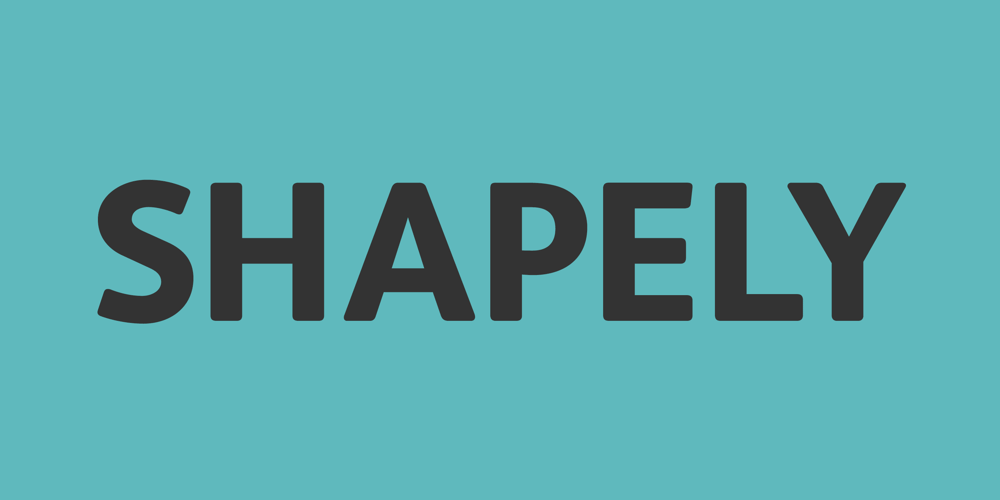
FS Albert
FS Albert font
FS Albert Font Family was designed by Jason Smith and published by Fontsmith. FS Albert contains 9 styles and family package options. The x factorHow do you make a font like FS Albert unique, distinctive? “When designing a font I try to question every letter,” says Jason Smith, “but all you need is a few that have an x factor. With FS Albert, they’re the lowercase ‘a’ and ‘g’ and the uppercase ‘I’ and ‘J’.“I remember a friend saying, ‘Why on earth have you designed the ‘a’ like that? Isn’t it too friendly for this kind of font?’ And, in a way, that’s what I wanted – honesty and warmth, because a lot of big brands at the time really needed to show a more human side.”Range of weights and stylesFS Albert is a charismatic type: a warm, friendly sans serif face with a big personality. Open, strong and amenable, and available in a wide range of weights and styles, FS Albert suits almost every task you put it to.Fontsmith has crafted five finely-tuned upright Roman weights and four italic weights, as well as a special Narrow version to provide the best coverage and give headlines and text an easy-going character.The chunky kid“FS Albert was inspired by – and named after – my son, who was a bit of a chunky kid,” says Jason Smith. “I designed an extra bold weight because I always felt that the really big font heavy weights had the most personality.“I recently told Albert this story. He laughed, and forgave me for thinking he was a fat baby. He liked the big personality bit, though.”1000s of glyphsNot content with a character set that covered Europe and the whole of the Western world, the studio decided to go further afield. There are now FS Albert character sets that cover western and eastern European languages, including those of Russia, as well as Cyrillic, Arabic and Greek scripts.In fact, the font now covers more than 100 languages, making it ideal for bringing a consistent typographic style to the communications of global brands.